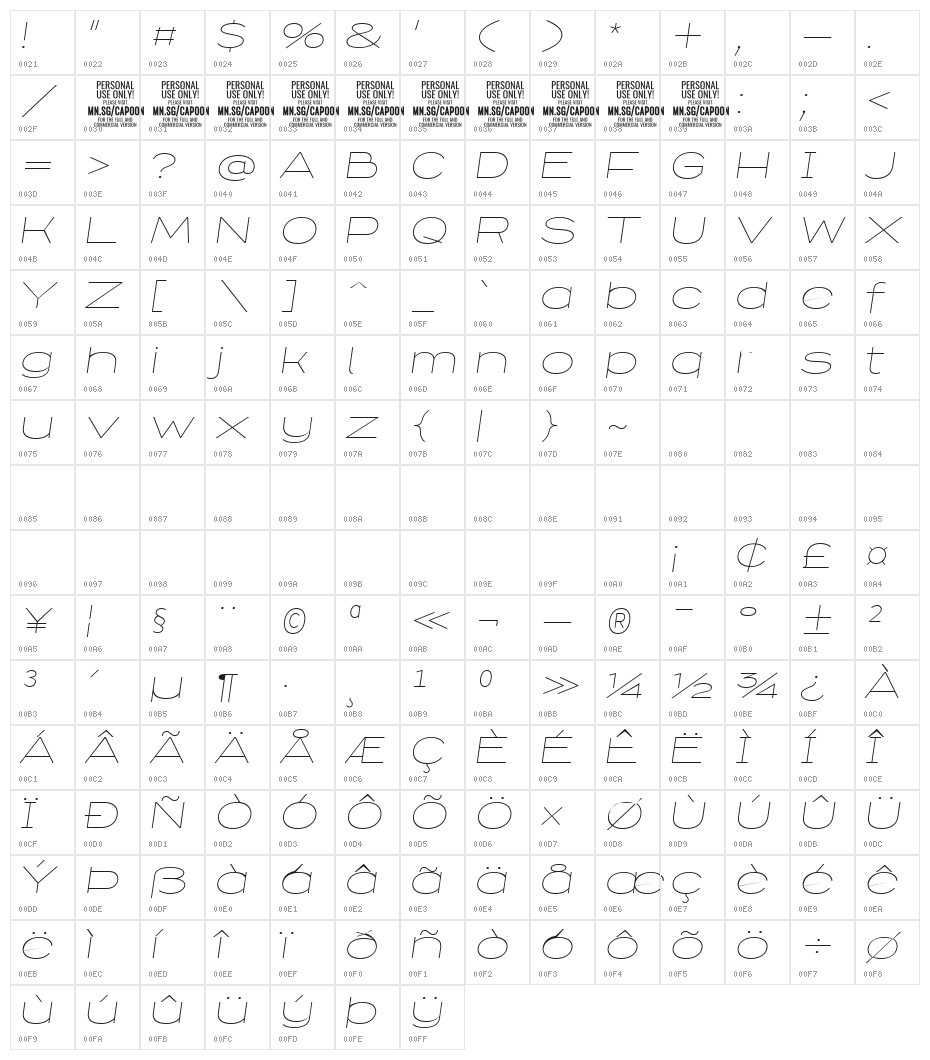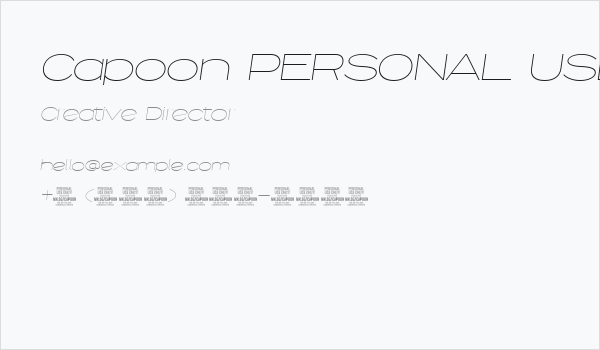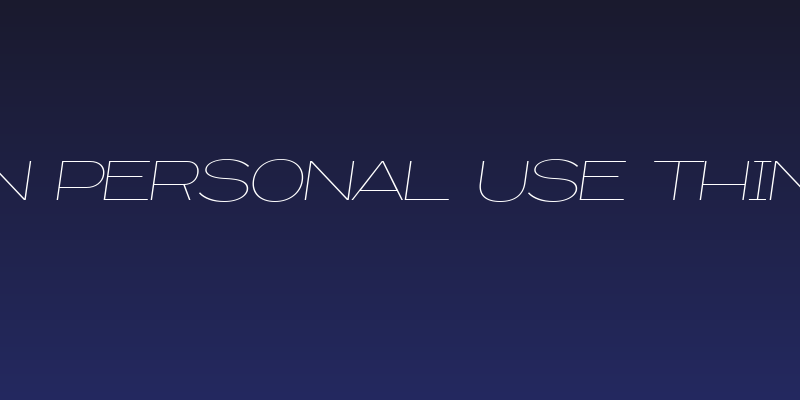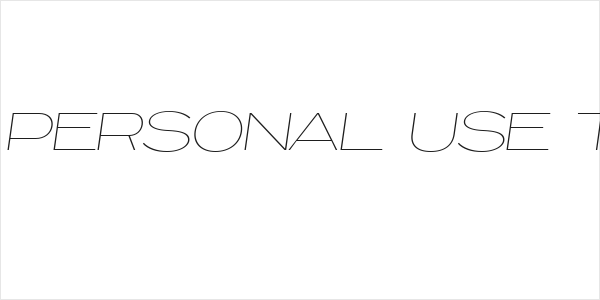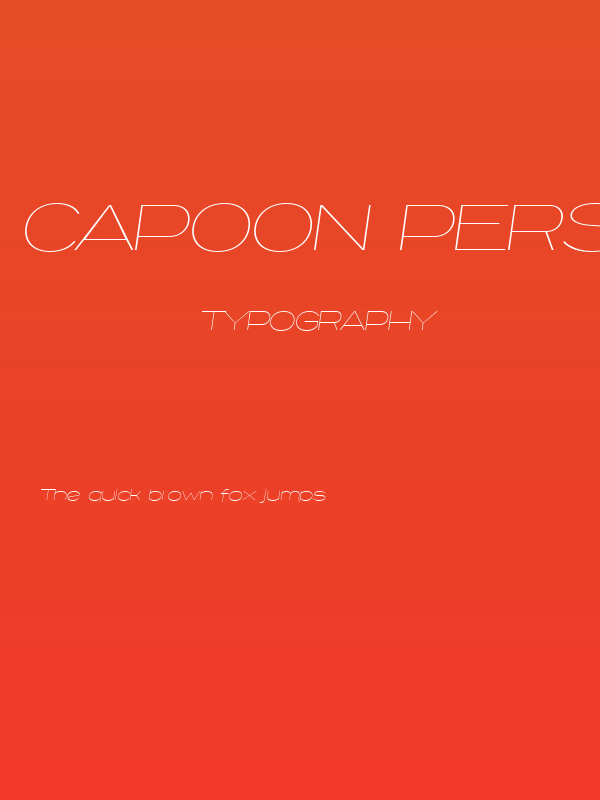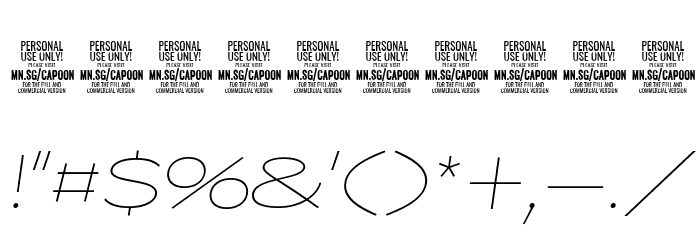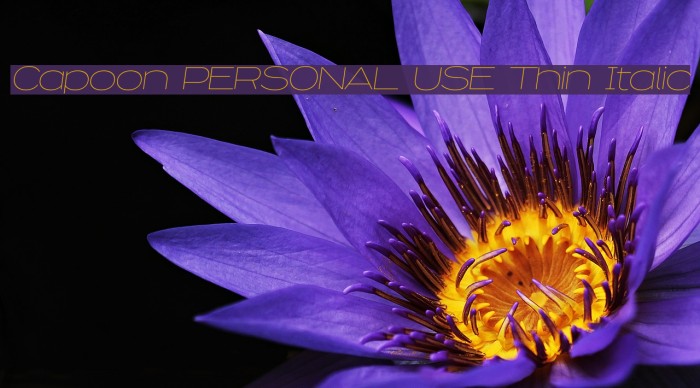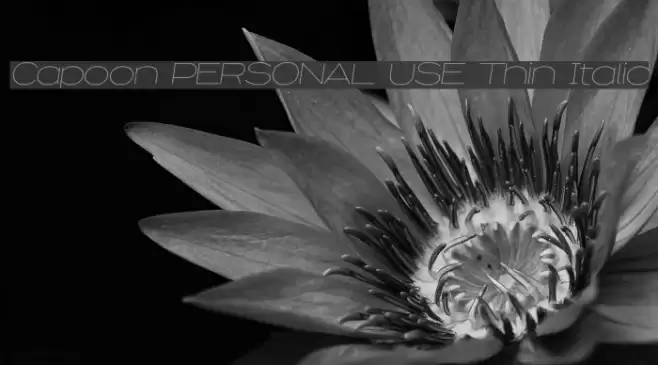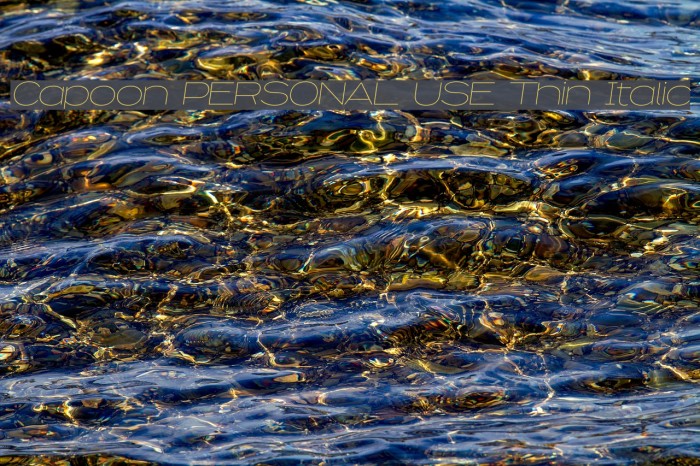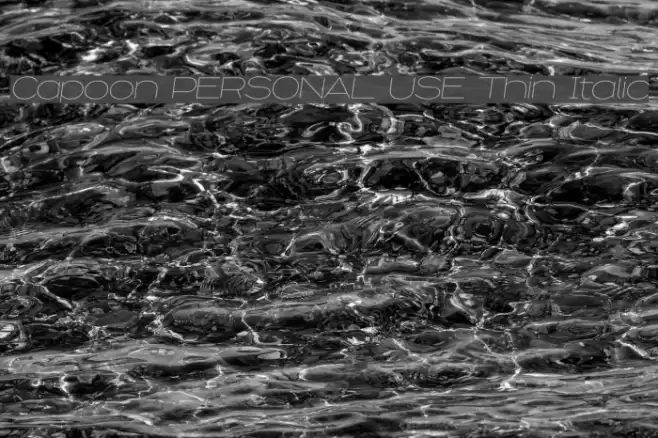
Capoon PERSONAL USE Thin Italic Font
Capoon PERSONAL USE Thin Italic Description
This font features a sleek, modern design with thin, elongated letterforms that convey a sense of elegance and sophistication. The italic style adds a dynamic and fluid quality, enhancing its contemporary appeal. Each character is crafted with precision, maintaining a consistent stroke width that contributes to its minimalist aesthetic. The font's geometric structure is evident in the clean lines and sharp angles, making it suitable for projects that require a refined and stylish look. Its thin weight and italic slant make it ideal for creating a sense of movement and grace, while the overall design remains highly legible and versatile.
| Use Case | Headlines, Logos, Editorial design |
| Proposed Projects | Ideal for fashion branding, luxury product packaging, modern website headers, and editorial design. |